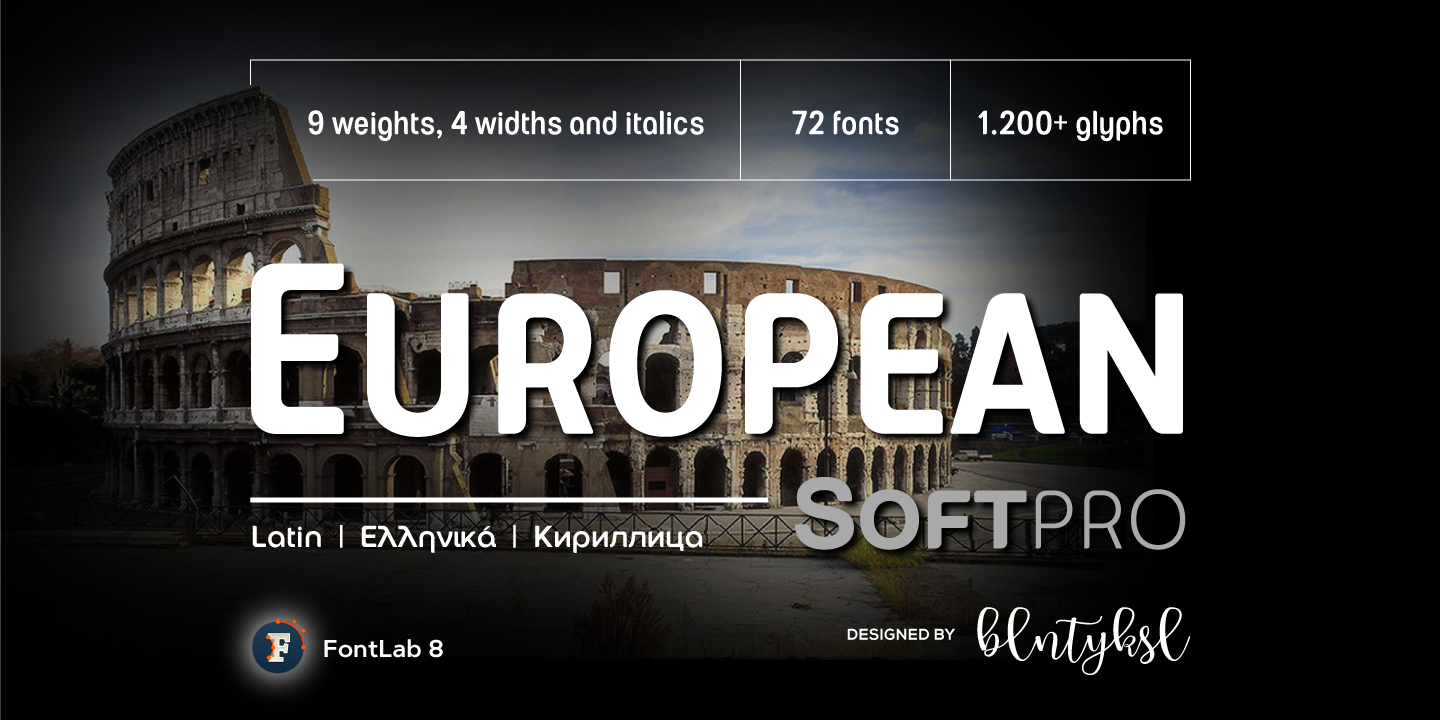
European Soft Pro Font is perfect for international corporate communications, multinational brand identity, professional European business documents, diplomatic correspondence, and sophisticated global marketing materials. Its refined character makes it ideal for EU institutions, international consulting firms, luxury European brands, cross-border financial services, and any application requiring elegant, multilingual typography that conveys European sophistication and global professionalism.
European Soft Pro Font is exciting because it embodies the sophisticated elegance of European design philosophy through softly rounded letterforms that balance warmth with professional authority. Its carefully crafted proportions reflect the harmonious balance between tradition and innovation that characterizes modern European aesthetics, making it perfect for organizations seeking to project international credibility and cultural refinement. The font's gentle sophistication appeals to global audiences while maintaining distinctly European charm.
European Soft Pro Font family includes comprehensive weight variations typically featuring Light, Regular, Medium, Semibold, Bold, and Black options with elegant italic styles. The family often incorporates extensive multilingual support, European currency symbols, and advanced OpenType features designed for international professional applications, providing designers with complete tools for creating sophisticated, globally accessible typographic communications.
When selecting international typography solutions, European Soft Pro Font Free Download represents an exceptional choice for global business projects. This distinguished typeface brings instant European sophistication to any communication, making it invaluable for multinational corporations, international organizations, and brands operating across European markets. Whether you're developing global brand guidelines, creating international marketing materials, or designing cross-cultural business communications, European Soft Pro Font provides the cultural sensitivity and professional elegance essential for successful international business relationships in today's interconnected European marketplace.